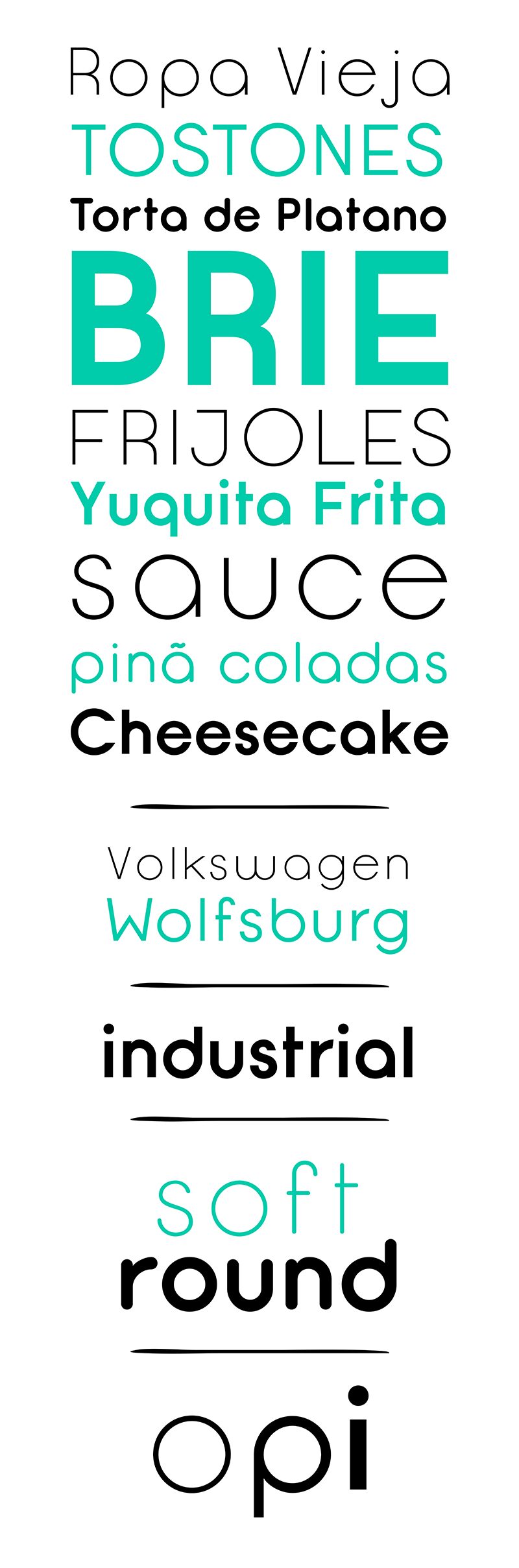
Opificio Light is a captivating sans-serif font that exudes a modern, minimalist elegance. Designed by Andrea Cerboneschi for Monocromo, this light-weight typeface boasts clean lines, subtle curves, and a distinctive openness that lends itself beautifully to a range of design applications.
The font's refined aesthetic and exceptional legibility make it an ideal choice for editorial layouts, branding collateral, and digital interfaces. Its versatility shines through in its potential to convey a sense of sophistication and clarity across various mediums. Opificio Light's understated charm and versatility make it a compelling option for designers seeking to create a polished, contemporary aesthetic.
Opificio Family:
Opificio Regular
Opificio Bold
Opificio Light
Opificio Rounded Regular
Opificio Rounded Bold
Opificio Rounded Light